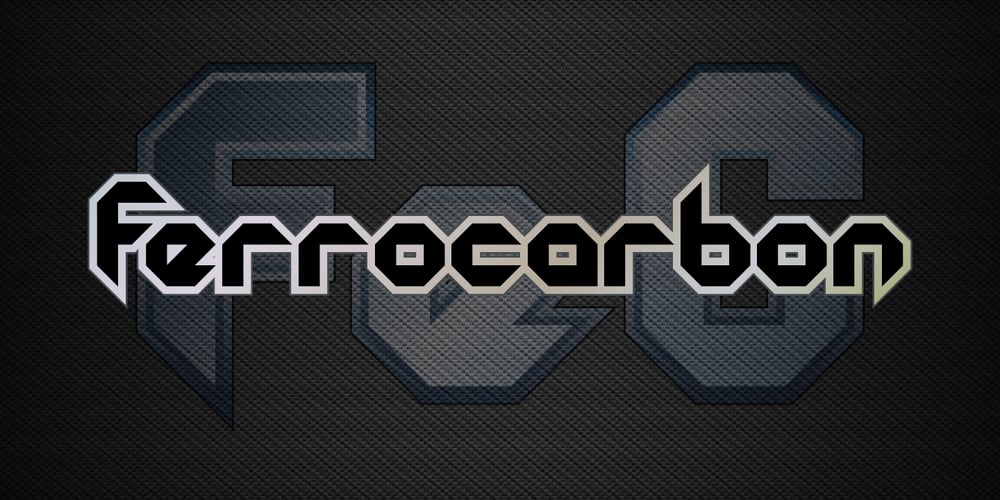
Ferrocarbon Font Family was designed by Rob Barba and published by Megami Studios. Ferrocarbon contains 3 styles and family package options. For the angular, blocky look, the future is Ferrocarbon! Designed primarily as a title font, I created it way back in 2013 and promptly forgot about, so I’m releasing it to the world now. it’s meant to be used for your tech and sci-fi uses, but don’t let us stop you there!